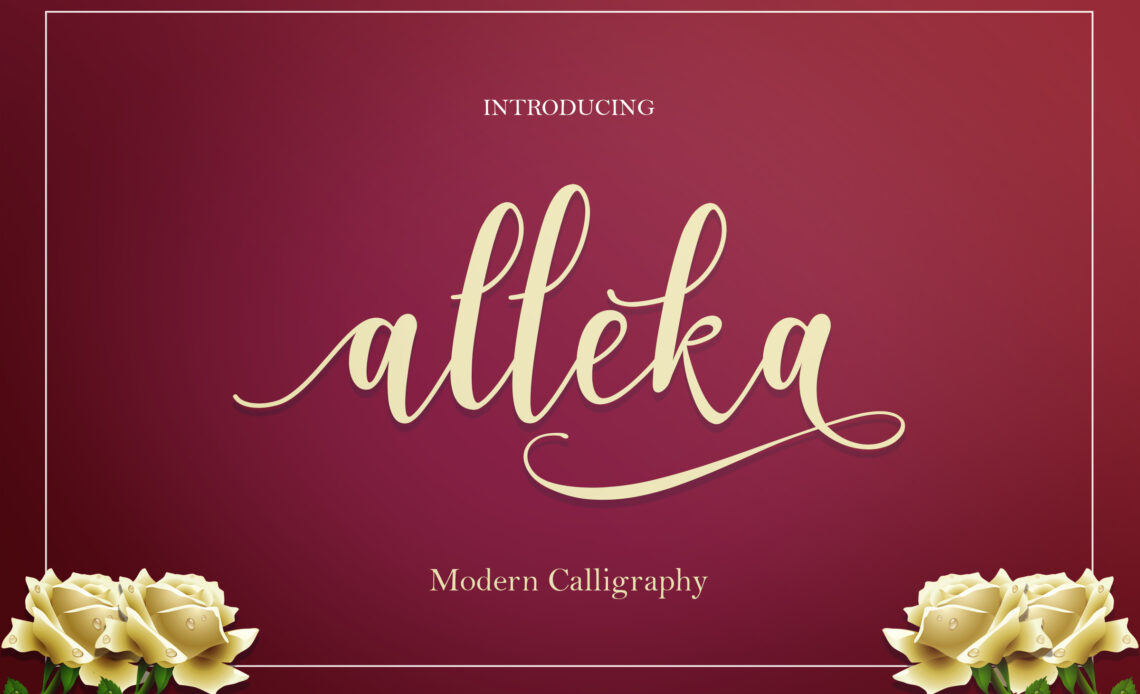
Indulge in the enthralling allure of Alleka Script, a font that transcends the boundaries of time, effortlessly blending the elegance of tradition with the allure of modernity. Each meticulously crafted letter dances gracefully across the page, leaving an imprint of undeniable charm. Its versatility knows no bounds, seamlessly adapting to a kaleidoscope of design aesthetics.
Unleash your creativity with Alleka Script's captivating swashes that dance and twirl, adding an enchanting touch to your designs. Dive into a world where sophistication and innovation intertwine, where timeless beauty meets contemporary flair. Alleka Script beckons you to embrace the extraordinary, to elevate your designs to realms of unparalleled elegance.
Immerse yourself in the allure of Alleka Script, where every letter whispers a tale of artistry and grace. Allow its timeless charm to infuse your designs with a touch of grandeur, a breath of fresh air that will leave a lasting impression. Embrace the synergy of past and present, where tradition meets innovation, in the enchanting embrace of Alleka Script.